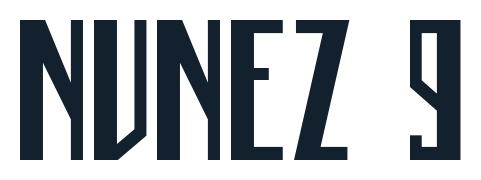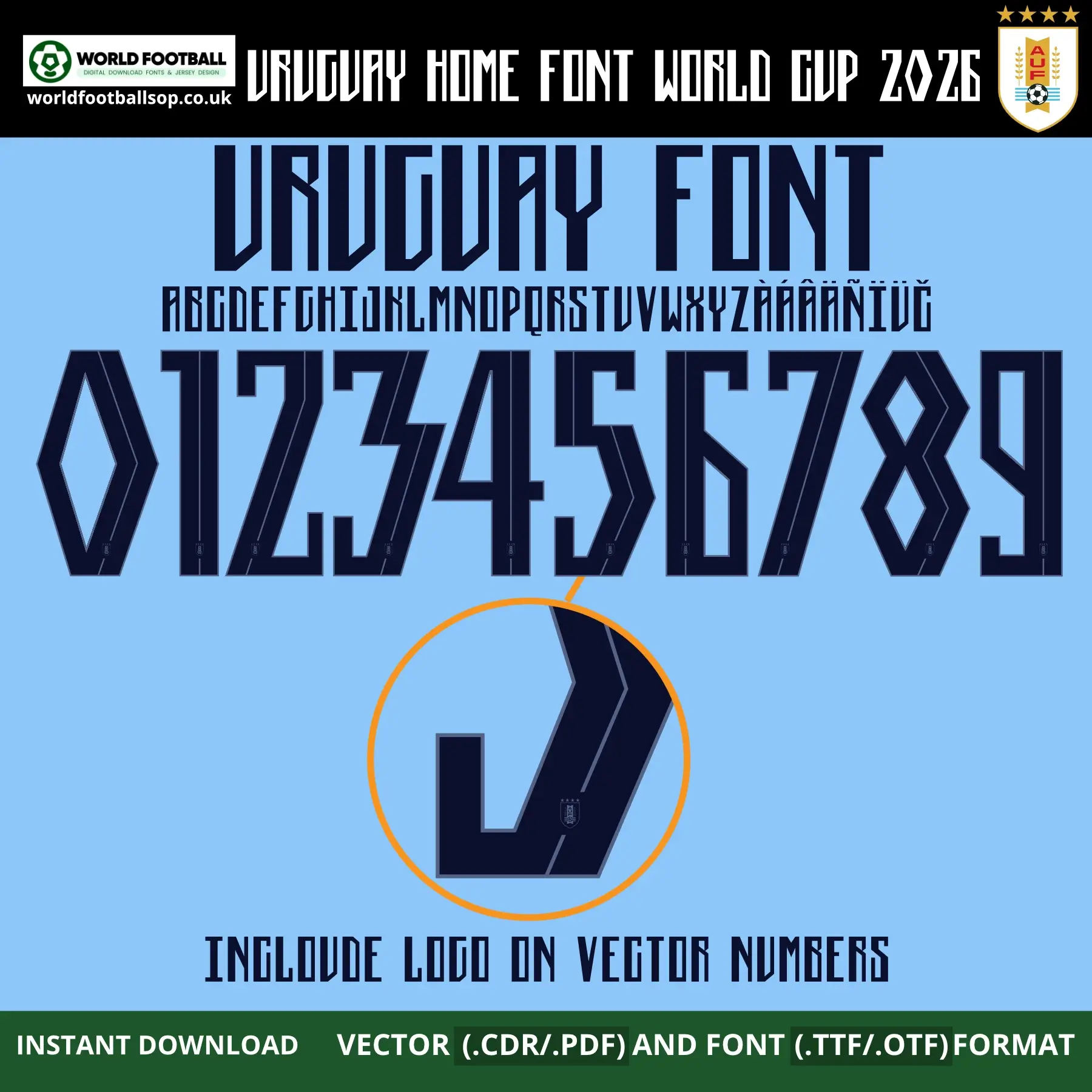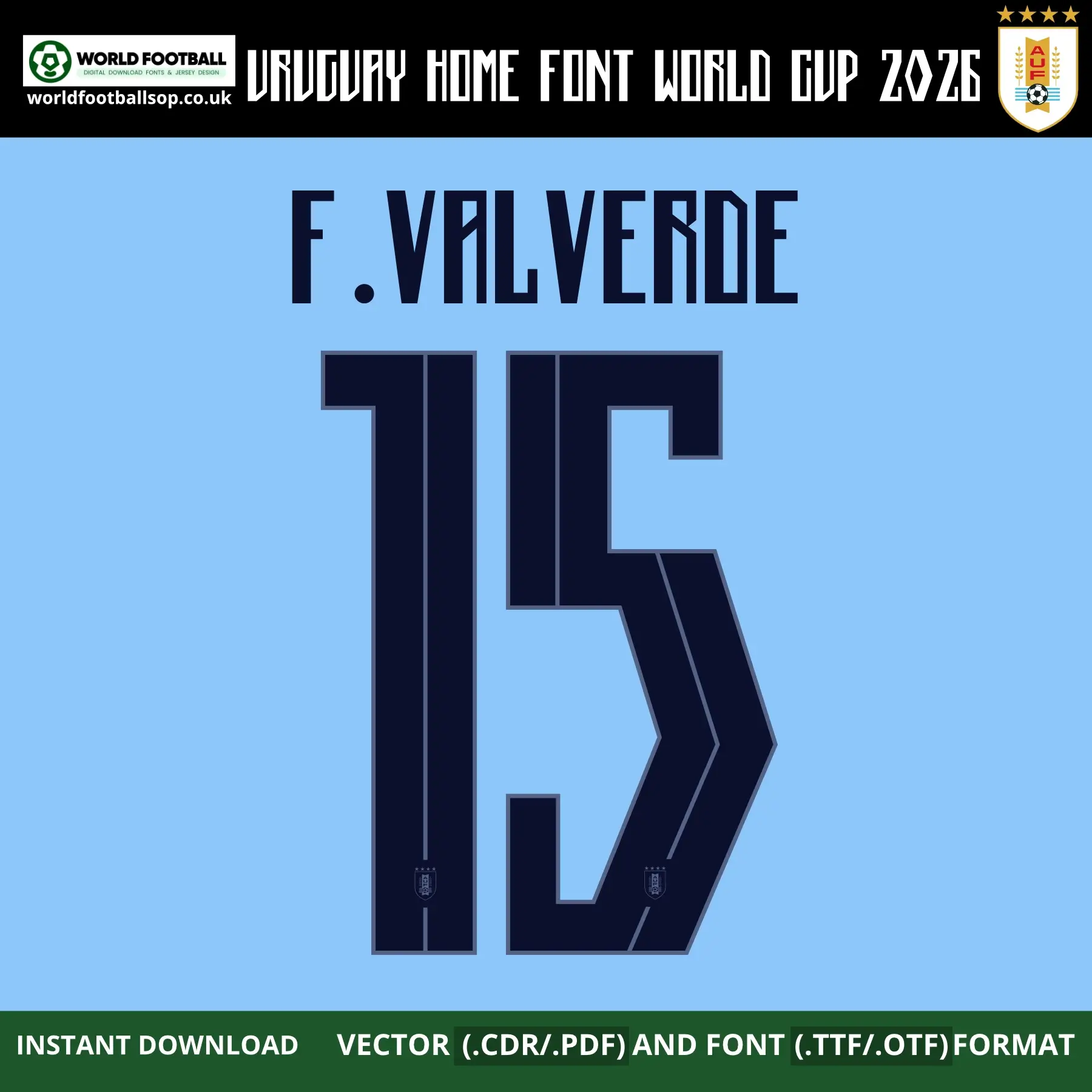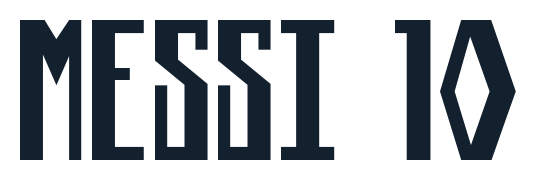
Uruguay Font Home World Cup 2026 recreates the sharp black diamond-cut numbers and letters from La Celeste's sky-blue home shirt. Download TTF, OTF and vector files (CDR, PDF) with full A-Z alphabet, accents and 0-9 numbers including Uruguay crests on vector digits for authentic Valverde 15 namesets.
Uruguay Font Home World Cup 2026 - Celeste Diamond Style
The Uruguay Font Home World Cup 2026 pack captures The Nike Uruguay 2026 World Cup kits bold geometric font for La Celeste's traditional sky-blue home kit. Your design features angular, diamond-shaped cuts with strong diagonal lines that give a dynamic, modern South American feel. On your covers, the black digits stand out sharply against the light blue background, matching the clean sky-blue shirt with its classic white collar and four-star AUF badge.
Perfect for kit printers, designers and collectors, this pack lets you build accurate Uruguay 2026 World Cup home namesets for stars like Valverde, and Darwin Núñez. Vector numbers include the Uruguay crest at the base of each digit, while the TTF/OTF fonts Football kit stay clean for posters, edits and social graphics.
Ideal for custom Uruguay home jerseys, World Cup graphics and fan merch using La Celeste's sharp 2026 typography.​
Design highlights
• Geometric diamond cuts: Sharp angles and diagonal facets create a distinctive Uruguayan identity.​
• Classic Celeste contrast: Bold black numbers on sky-blue fabric echo Uruguay's traditional home colors.​
• High legibility: Clean lines and strong stroke weights ensure readability under floodlights.​
Use this font to bring authentic South American football style into your designs-whether for custom jersey graphics, fan merchandise, posters, or social media content.